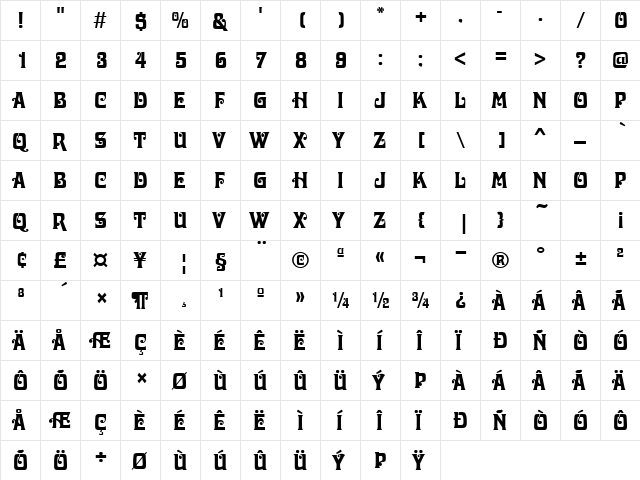
PT Partridge Normal
Design Context for PT Partridge Typeface
PT Partridge is a composed and adaptable typeface that performs quietly and consistently across a wide range of design contexts.